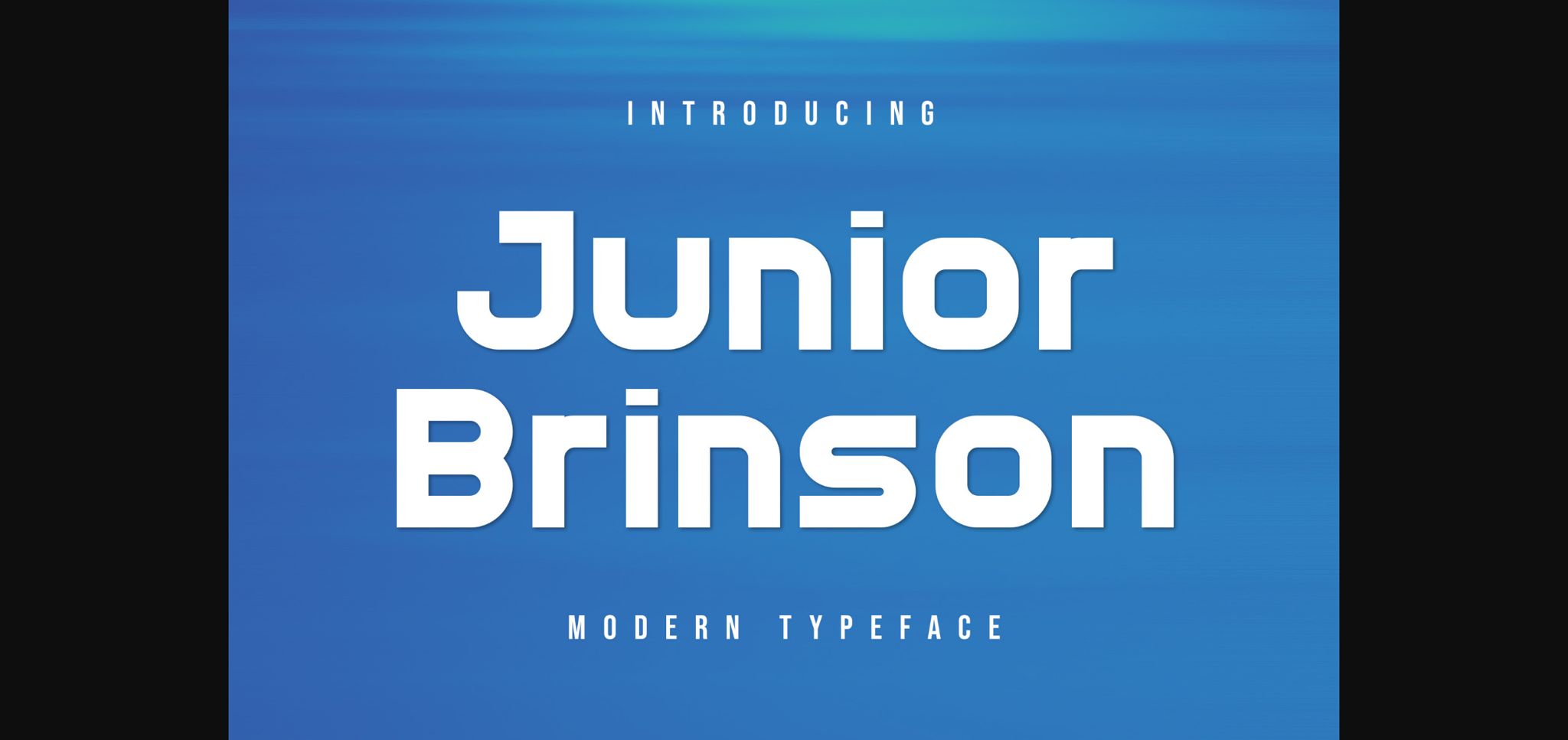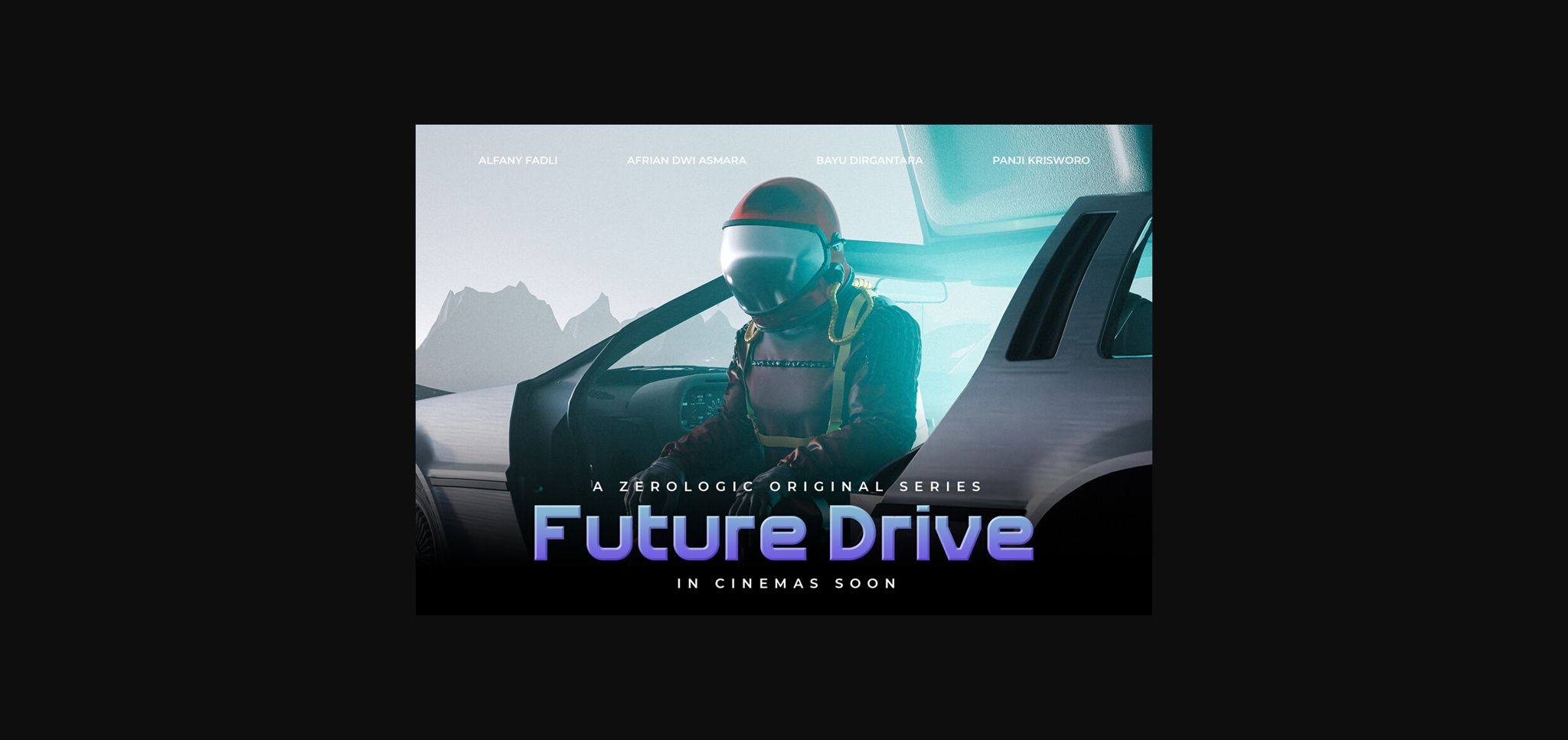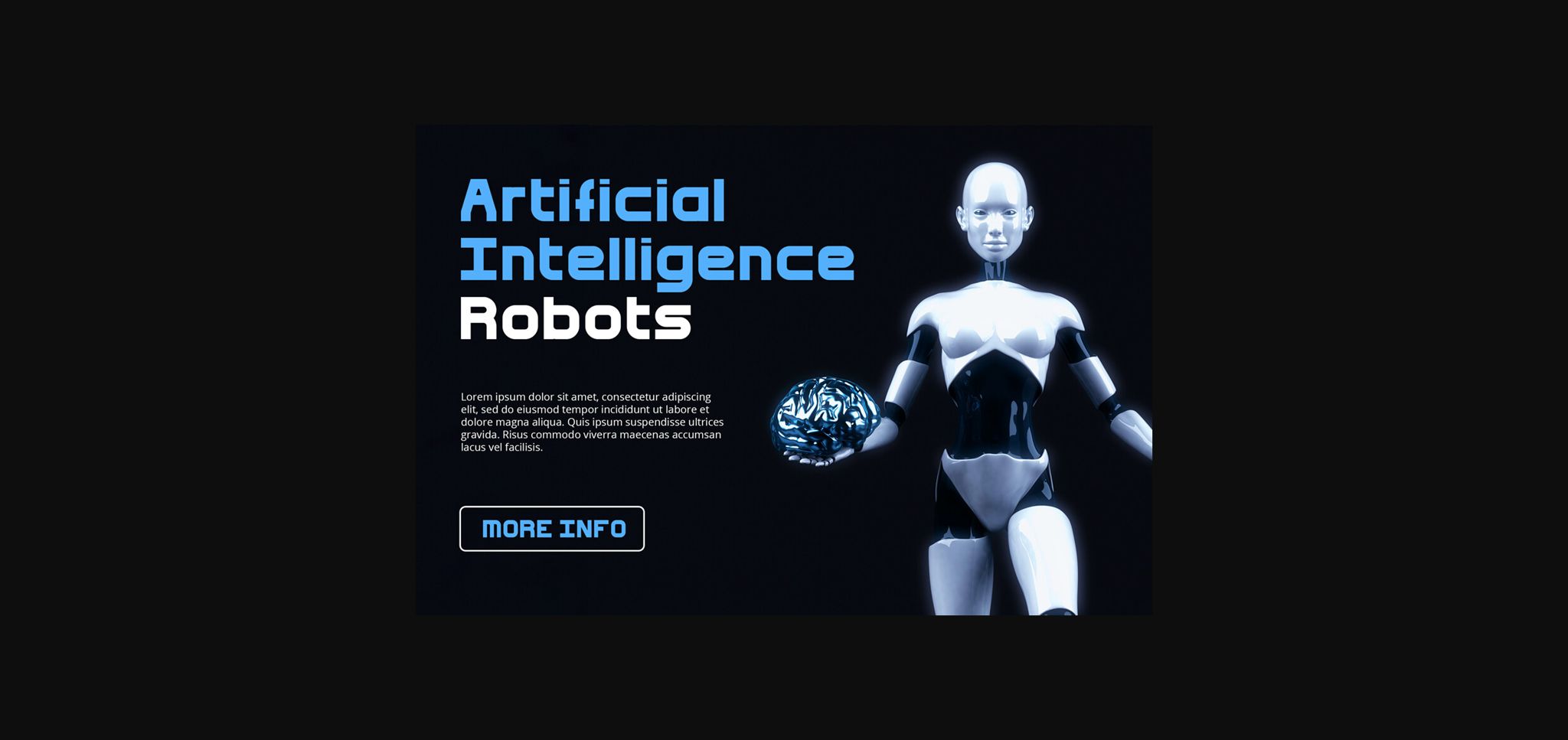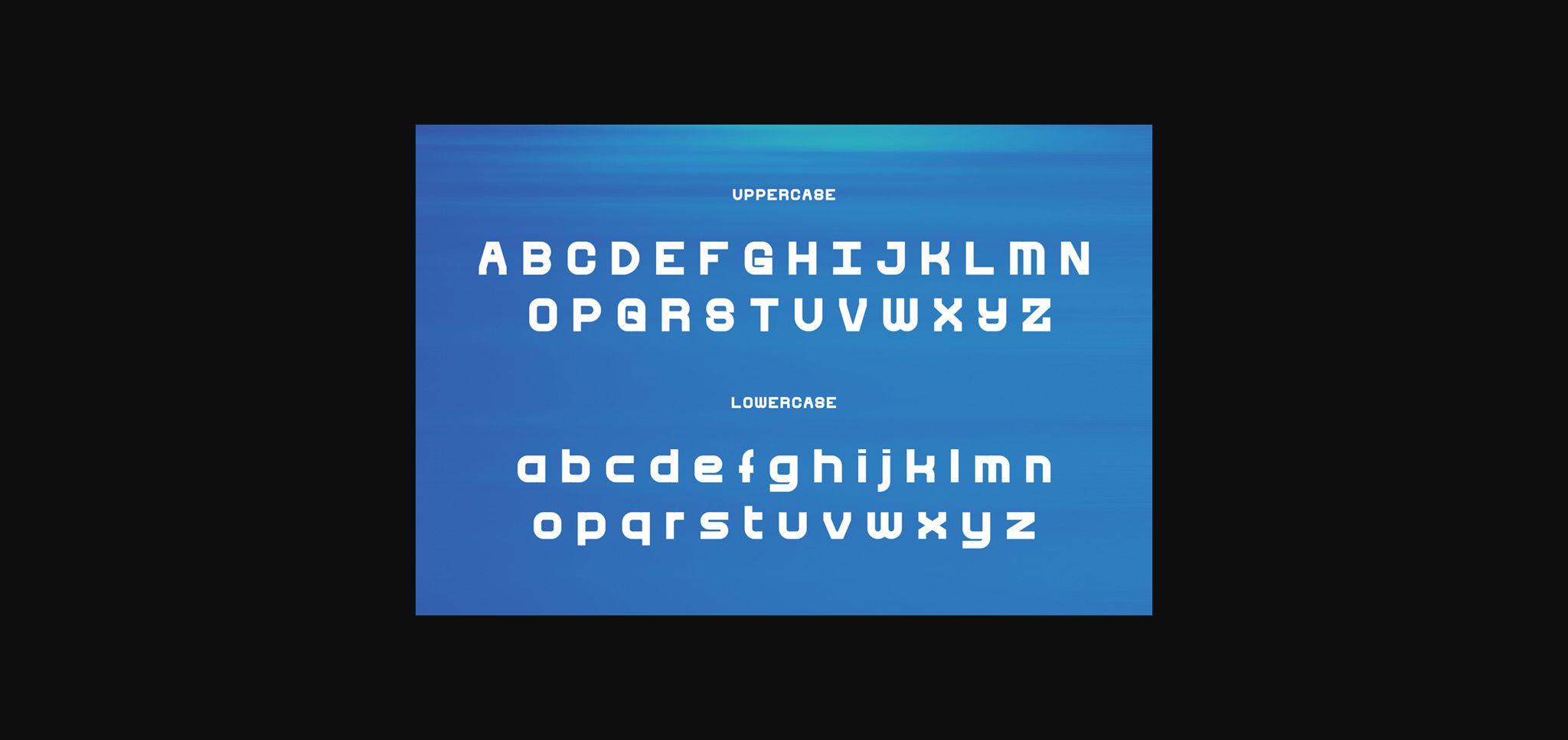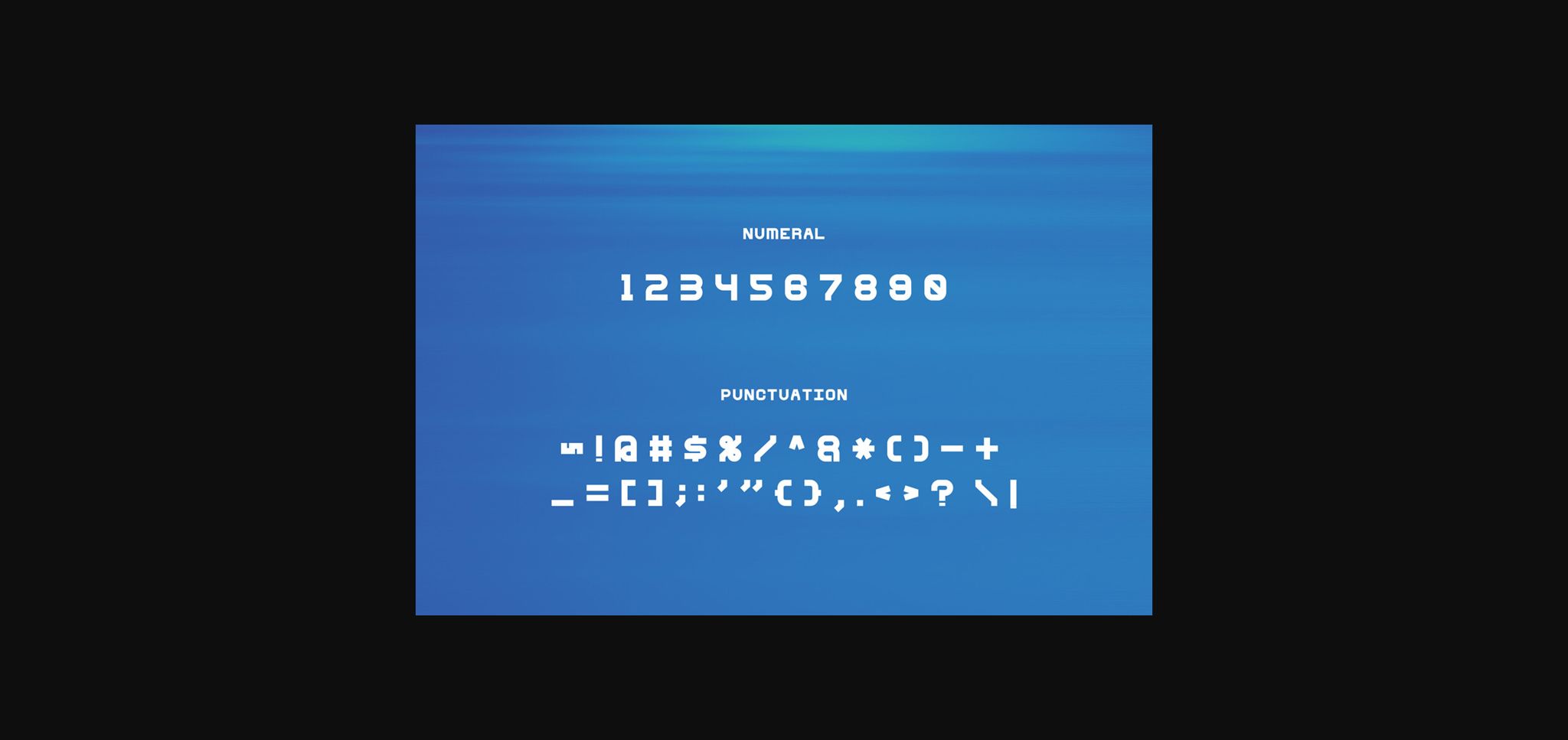
Junior Brinson Font
About Junior Brinson Font
Junior Brinson is a modern and cool sans display font. Add it to your creative projects and enjoy the results!